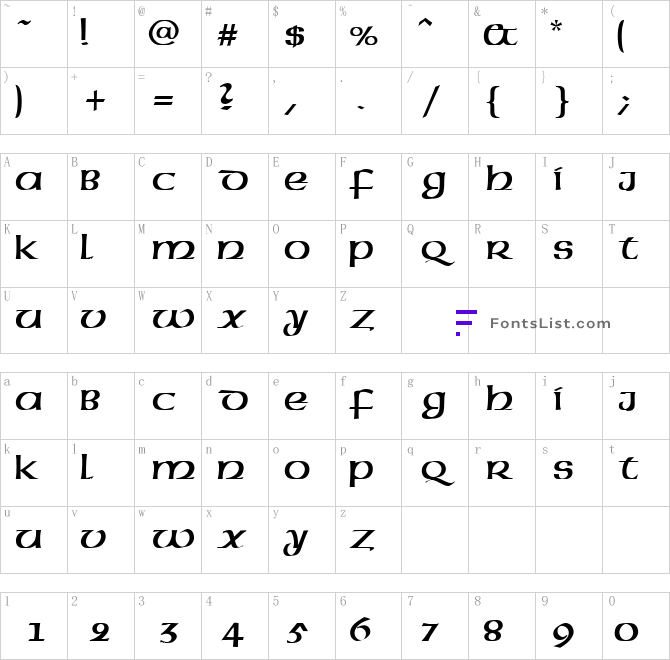
- Font Name:ALGHERO
ALGHERO-Regular.ttf is a very beautiful artistic font, ALGHERO-Regular.ttf is widely used in the design and printing of various books and pictures,ALGHERO-Regular.ttf has a strong visual impact,ALGHERO-Regular.ttf is a commonly used font in newspapers, magazines and books, and is used in posters, e-commerce Poster design, store design, logo design, font design and other fields.ALGHERO-Regular.